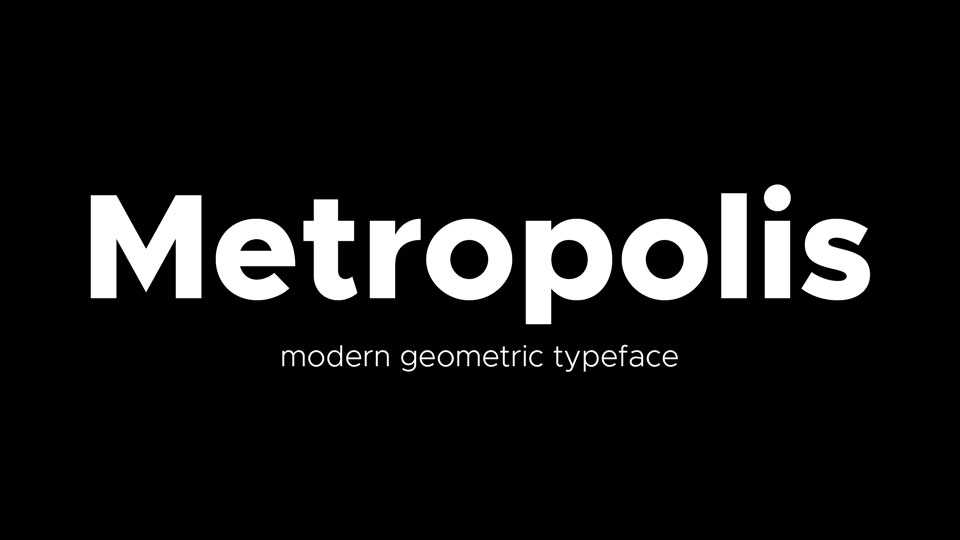
Download Metropolis typeface, a modern geometric sans serif font family of 18 fonts, influenced by other popular geometric, minimalist sans-serif typefaces of the new millennium.
Designer: Chris Simpson